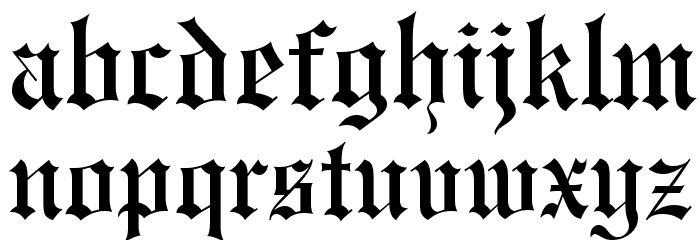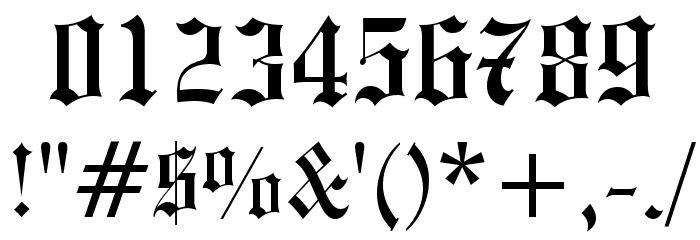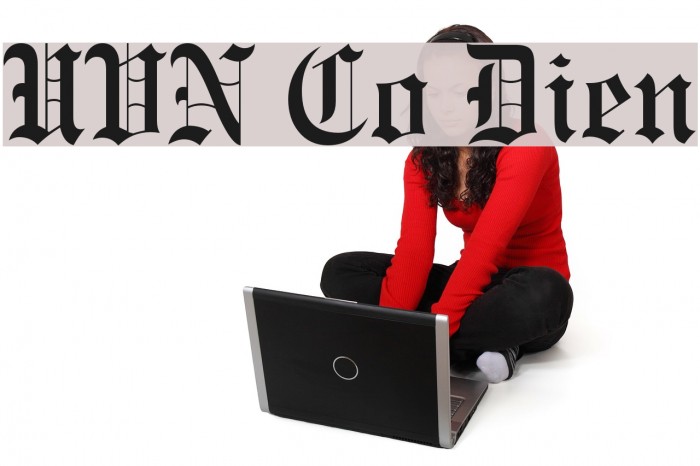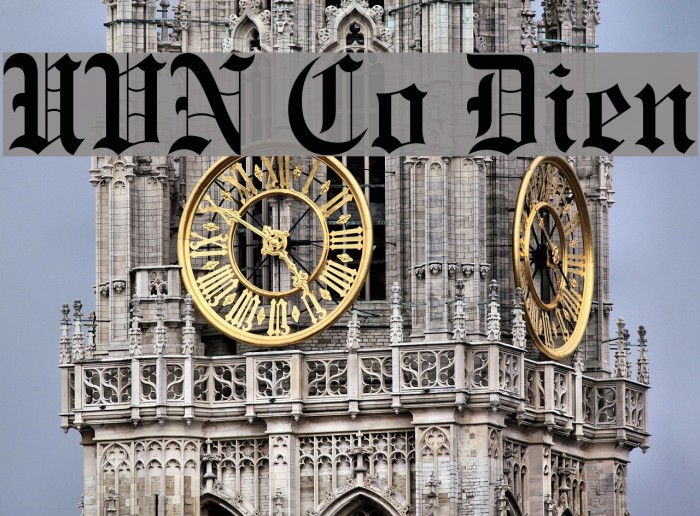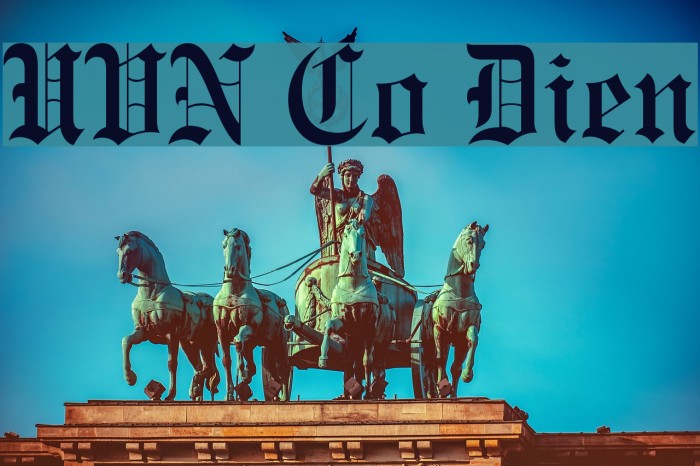
UVN Co Dien Font
This font exhibits a classic blackletter style, characterized by its ornate and intricate design. The letters are bold and angular, with sharp serifs and a distinct medieval aesthetic. The uppercase letters are particularly elaborate, featuring decorative flourishes and a strong vertical emphasis. The lowercase letters maintain the same gothic style, with consistent stroke thickness and a cohesive appearance. Numbers and special characters are designed to match the overall theme, ensuring a uniform look across all text elements. This font is ideal for projects that require a historical or traditional touch, offering a dramatic and impactful visual presence.
A bold, blackletter font with intricate, medieval-inspired design.
- Proposed Projects: Ideal for historical documents, invitations, posters, or any project seeking a traditional or gothic aesthetic.
- Overall Style: Classic
- Use Case: Headlines, Logos, Decorative text